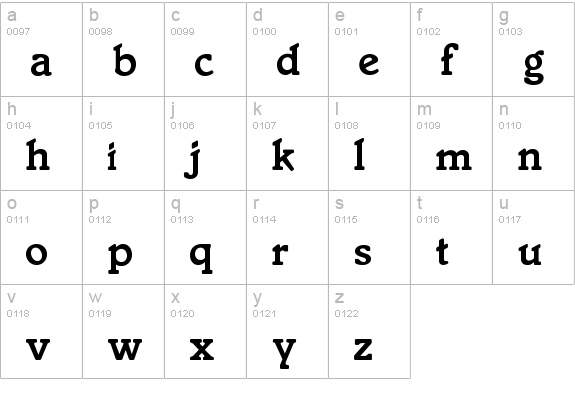
ItaliaMedium Font Details
ItaliaMedium is a stunning font that effortlessly combines elegance and modernity. With its sleek lines and refined curves, this typeface exudes a sense of sophistication and professionalism, making it perfect for a wide range of design projects. Whether you're working on branding, editorial design, or web design, ItaliaMedium delivers a timeless and versatile aesthetic that will captivate your audience. What sets ItaliaMedium apart is not only its impeccable design but also the fact that it is completely free to use. Yes, you read that right - this extraordinary font is freely available to download at FontsMarket.com. Now you can enhance your creative endeavors without any cost restrictions, allowing you to explore and experiment with ItaliaMedium to your heart's content. The versatility of ItaliaMedium is evident in its extensive character set, which includes uppercase and lowercase letters, numerals, punctuation marks, and various special characters. This comprehensive collection ensures that you have all the tools you need to bring your design visions to life. ItaliaMedium's legibility is exceptional, ensuring that your message is effectively communicated to your audience. Whether it's used for headlines, subheadings, or body text, this font remains clear and readable even at smaller sizes, making it a reliable choice for both print and digital projects. To summarize, ItaliaMedium is a visually striking font that effortlessly blends elegance and modernity. Its availability as a free download at FontsMarket.com allows you to explore its remarkable potential without any financial constraints. So why wait? Elevate your designs and unlock your creativity with ItaliaMedium - the perfect font for a wide range of design projects.